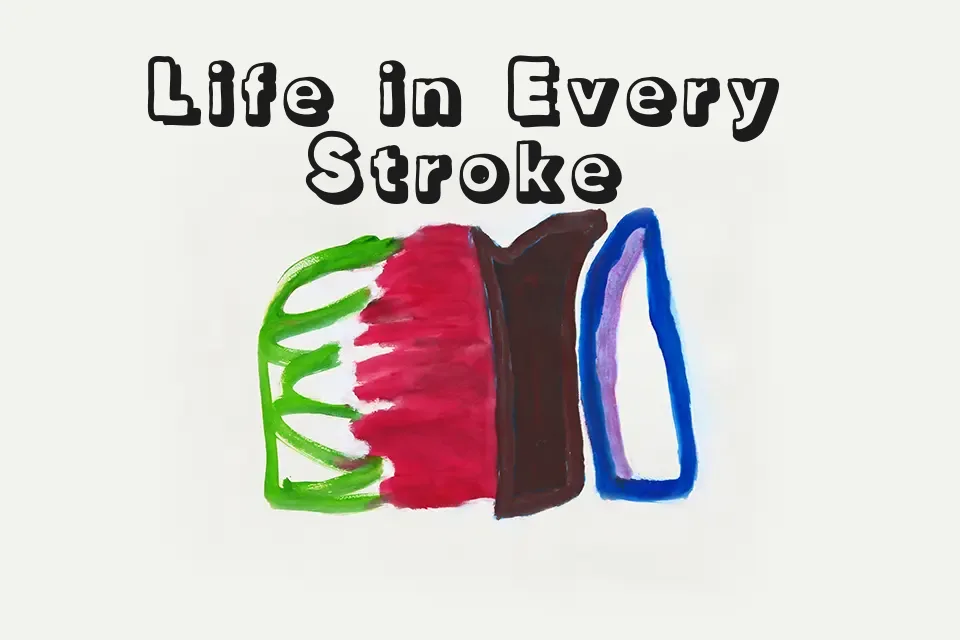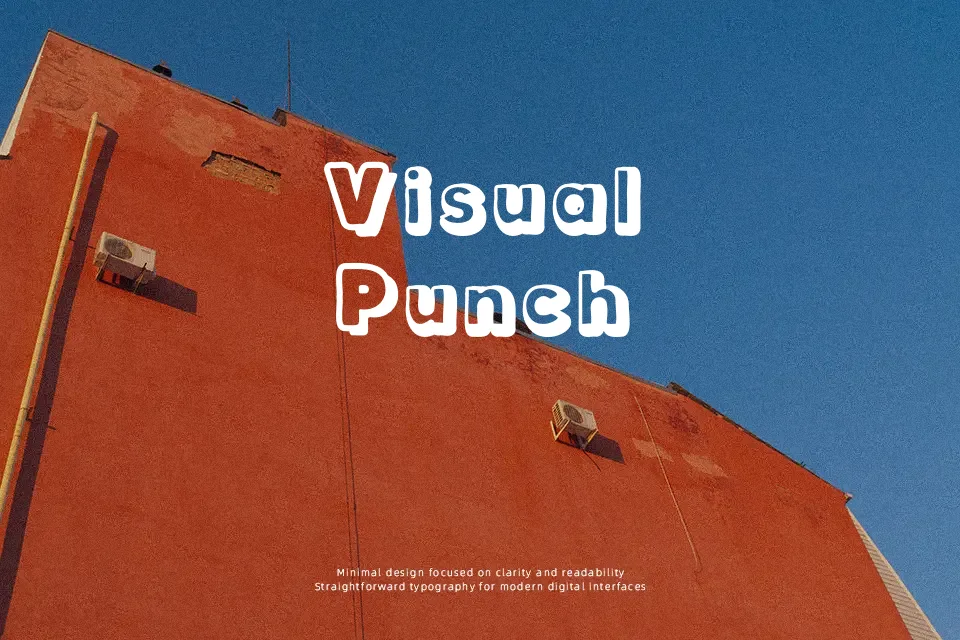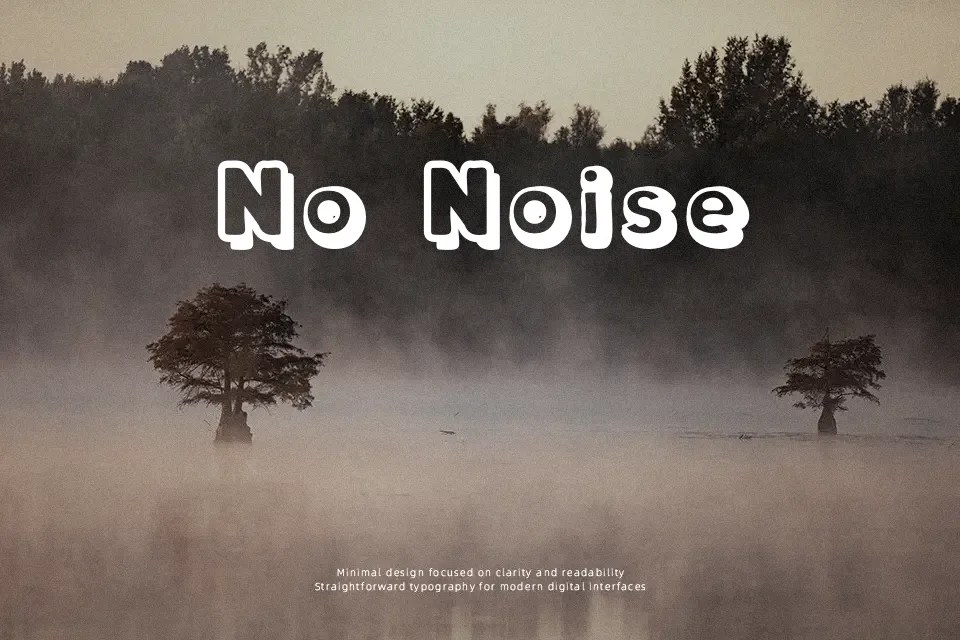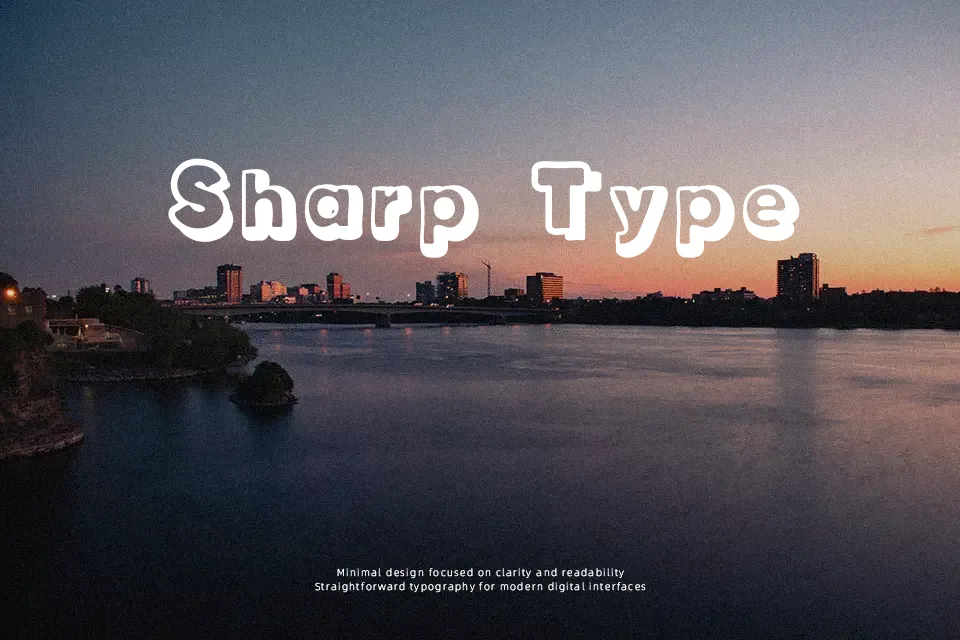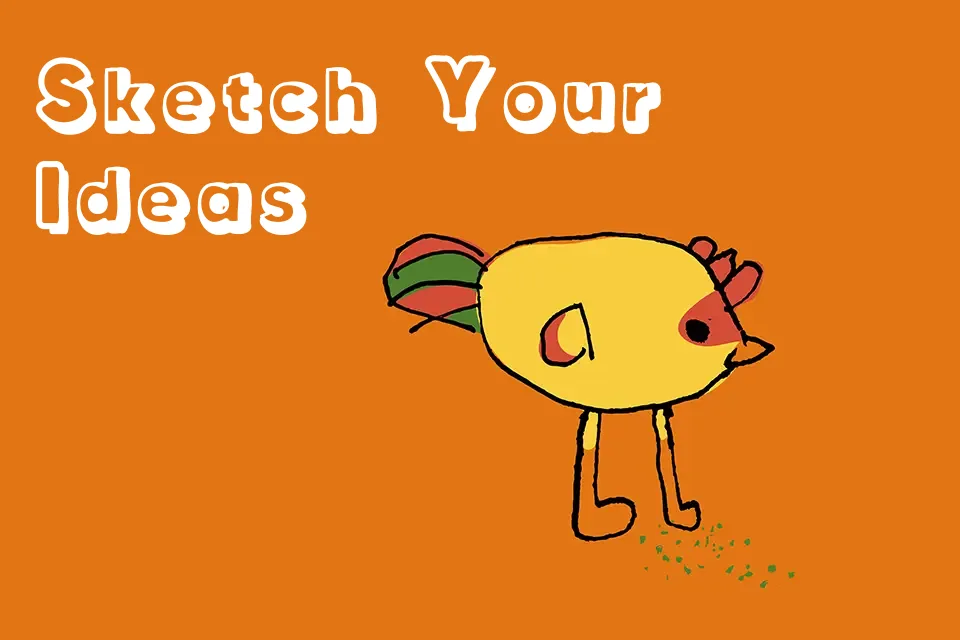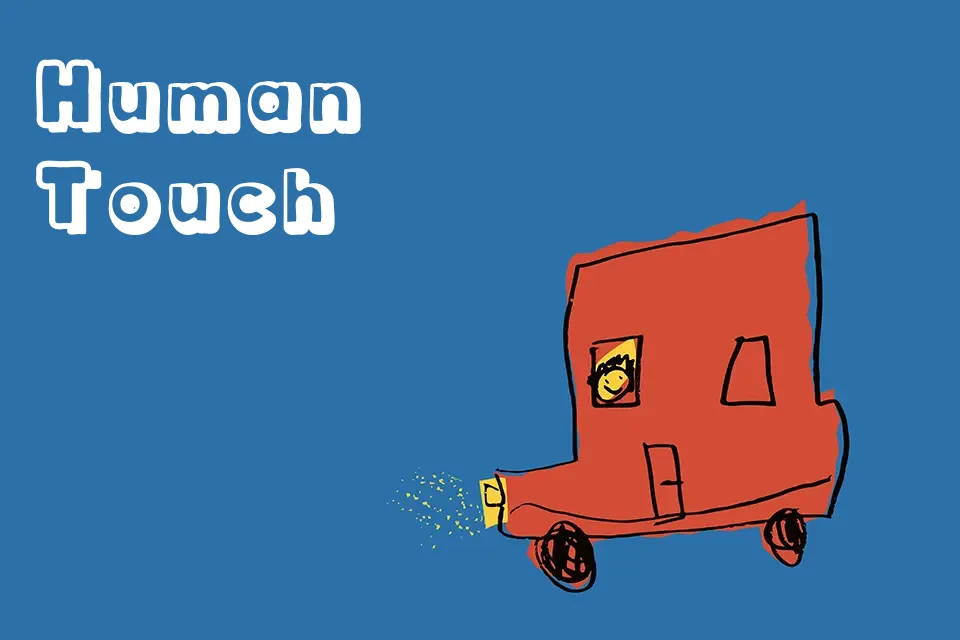
Alchemist Whiteboard Font
Designed by Ardi Alemi
Alchemist Whiteboard uses thick, rounded strokes and a built‑in drop shadow to create a chunky, three‑dimensional handwritten look that feels like marker lettering on a whiteboard. The spacing is relatively even for a display face, so short headlines and labels stay legible even at smaller sizes, while the bold weight pushes strongly toward eye‑catching designs. It works well for children’s event posters, educational worksheets, casual YouTube thumbnails, and playful product packaging where a fun, cartoon touch is needed. However, the heavy drop shadow and chunky forms can become tiring in long text blocks and look out of place in formal or minimalist branding, so it is best reserved for short, loud messaging rather than serious editorial layouts.
kids’ activity or classroom posters
playful brand or event headlines
educational worksheets and flashcards
fun social media or thumbnail titles
long paragraph text or body copy
formal corporate reports or presentations
minimal, ultra-clean brand systems
small UI labels or dense data graphics
Perfect for advertising, kids, and logo, with a artistic and comic style.